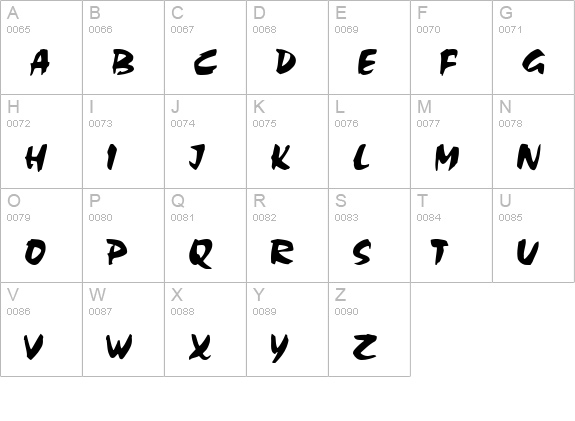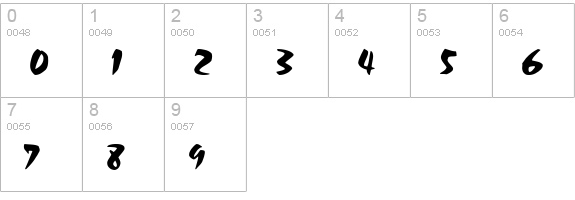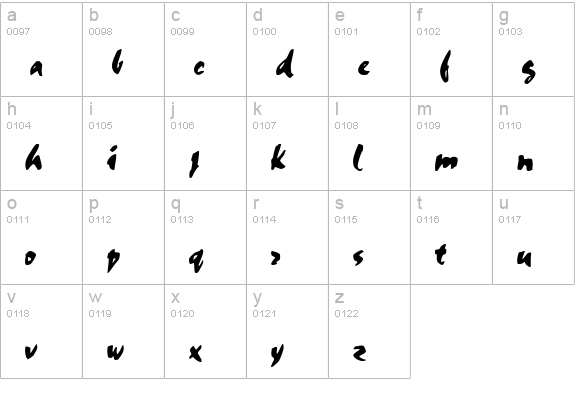
Chalk Regular is the standard, neutral variant in the Chalk typeface family \xE2\x80\x94 well suited to general body text, paragraphs, and standard typographic work.
Chalk Regular font is a charming and versatile typeface that brings a playful and handwritten feel to any design project. With its smooth lines and quirky style, this font is perfect for adding a touch of whimsy to your creations. Whether you're working on a poster, invitation, or branding project, Chalk Regular will surely stand out and make a statement. Best of all, Chalk Regular font is available for free download at FontsMarket.com. This means you can easily access this delightful font and use it in your personal or commercial projects without any cost. Don't miss out on this fantastic opportunity to enhance your designs with the unique charm of Chalk Regular font. Download it today and let your creativity shine!